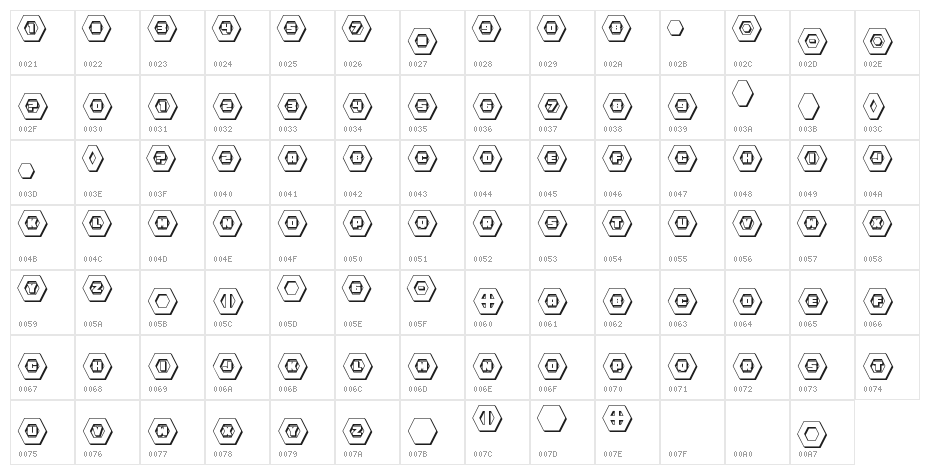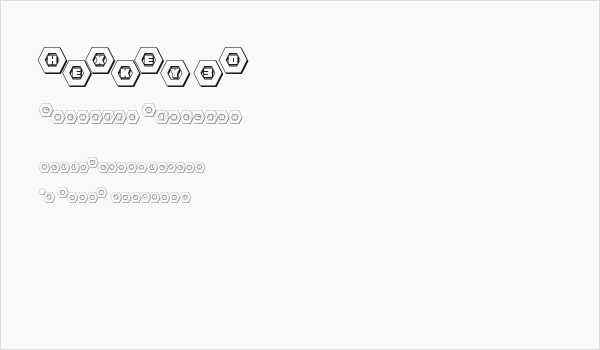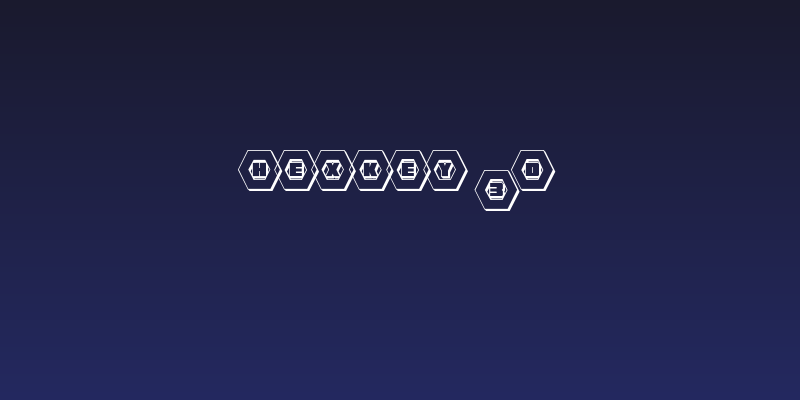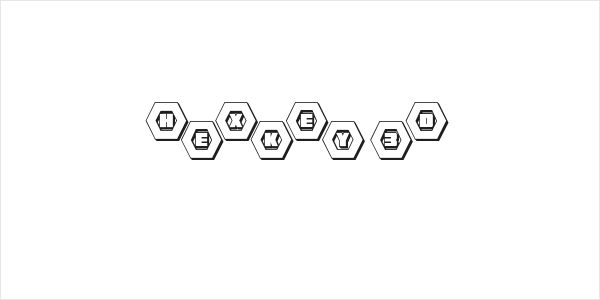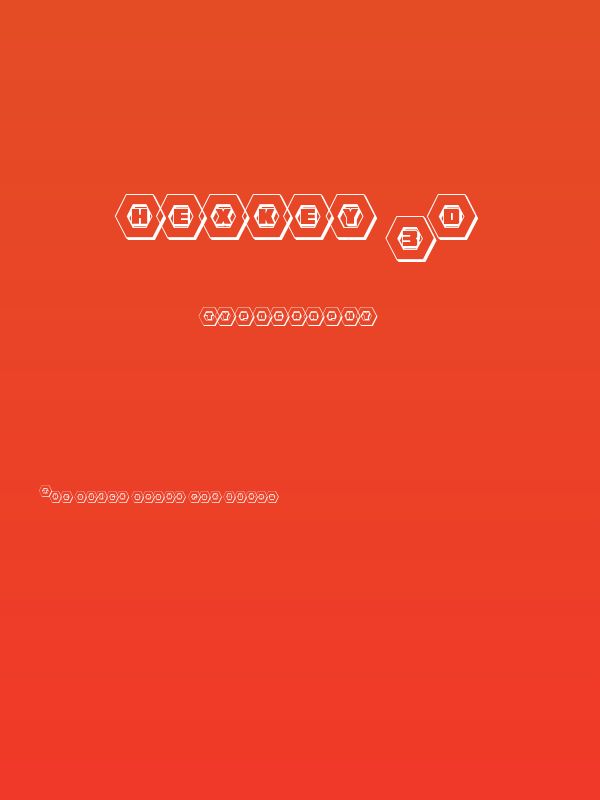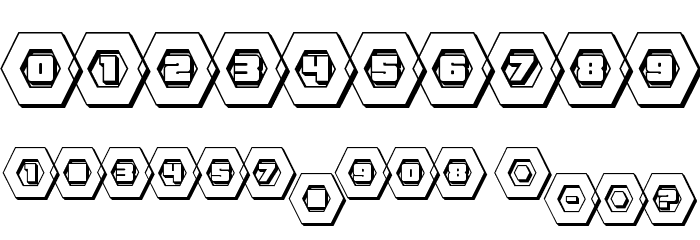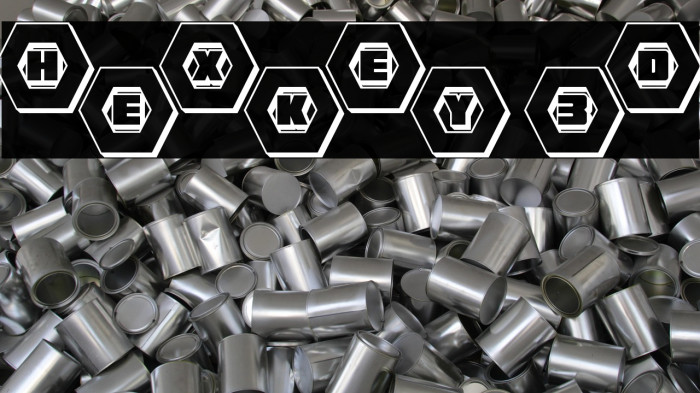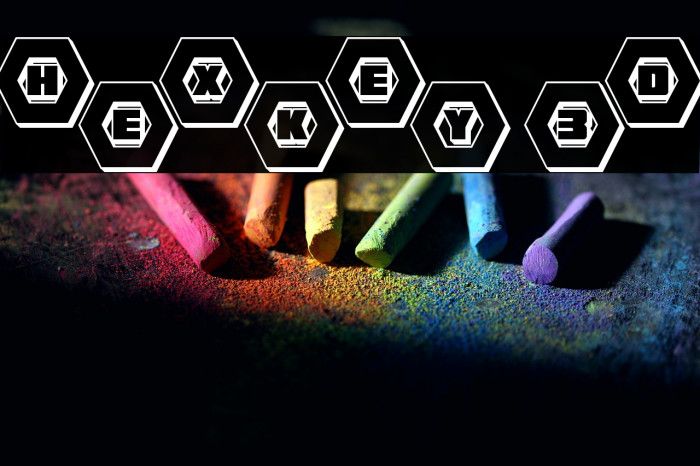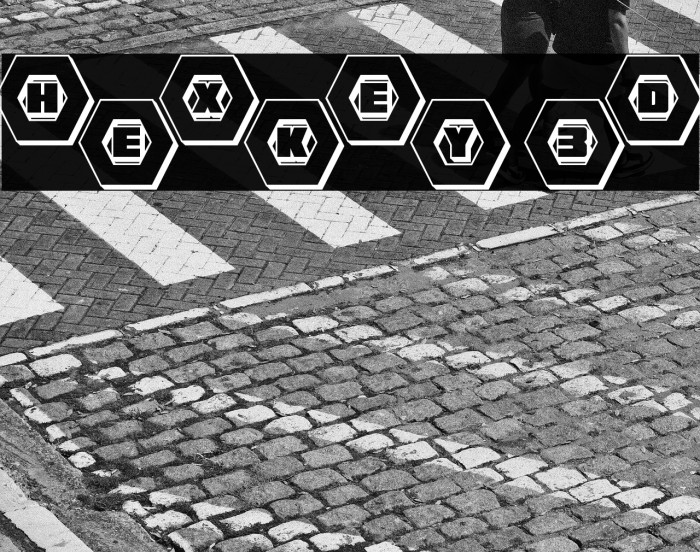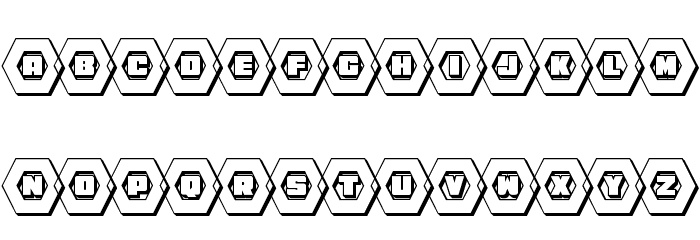
HeXkEy 3D Font
This font features a unique and futuristic design with each character enclosed within a hexagonal shape. The letters and numbers are bold and geometric, giving a three-dimensional effect with a shadowed outline. The style is highly decorative, making it stand out with its distinct hexagonal borders. The characters are evenly spaced within their hexagons, providing a uniform appearance. This font is ideal for projects that require a modern and tech-inspired aesthetic.
| Overall Style | Futuristic, Decorative |
| Proposed Projects | Ideal for sci-fi themed designs, tech branding, video game titles, and futuristic posters. |